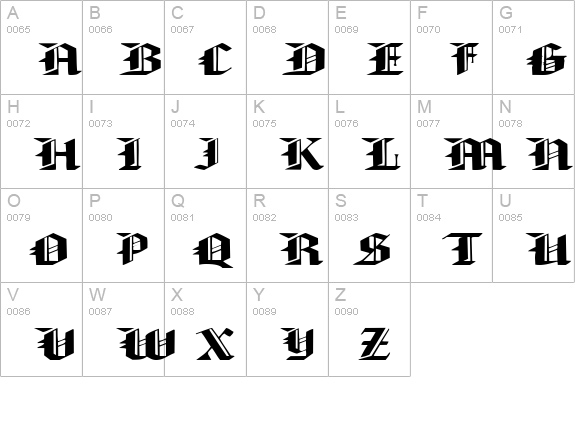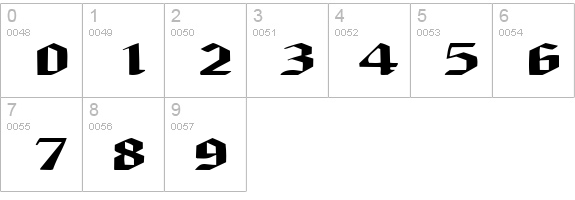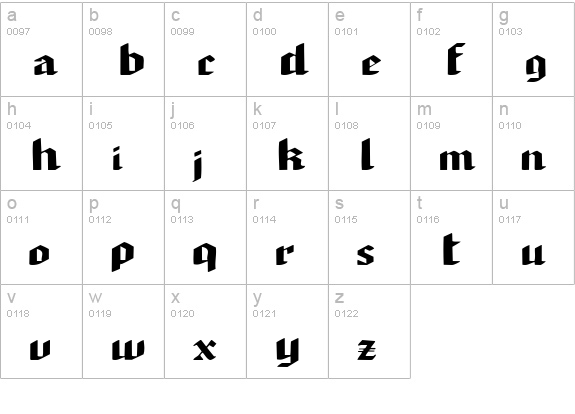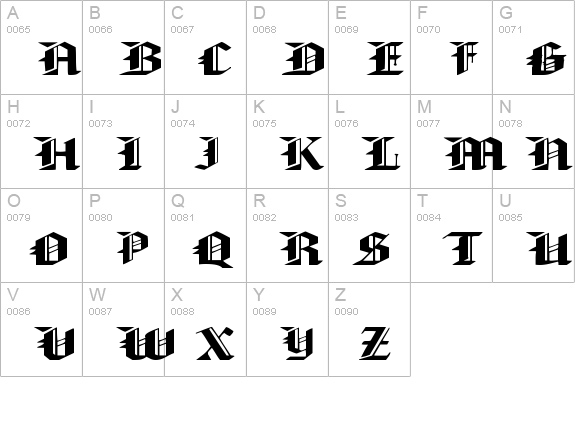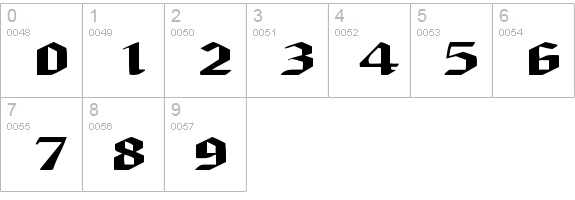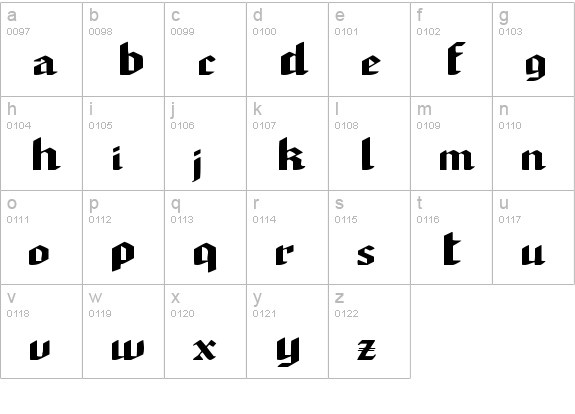
ArmedaSSK Bold Font Details
ArmedaSSK Bold is a strong, high-contrast variant in the ArmedaSSK typeface family \xE2\x80\x94 well suited to headlines, attention-grabbing titles, and strong calls-to-action.
ArmedaSSK Bold font is a striking and bold typeface that commands attention with its strong and powerful presence. With its sharp edges and clean lines, this font exudes confidence and modernity, making it perfect for headlines, titles, and other display purposes. The best part? ArmedaSSK Bold font is available for free download at FontsMarket.com. Whether you're looking to make a statement in your designs or add a touch of boldness to your projects, this font is sure to deliver. Don't miss out on the opportunity to elevate your designs with this versatile and eye-catching typeface. Download ArmedaSSK Bold font today and unleash your creativity!